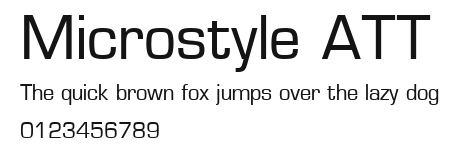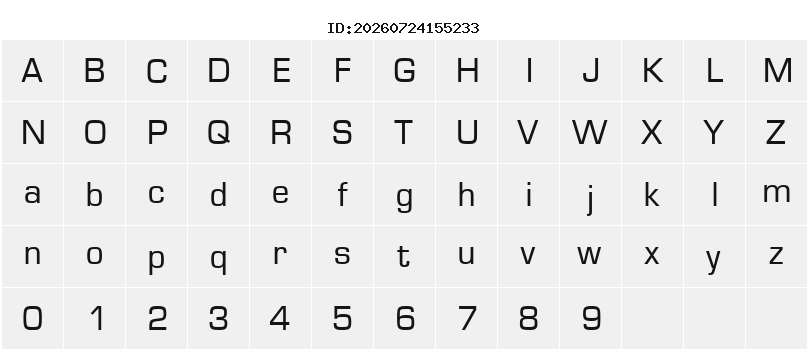
Microstyle ATT Preview
• Font Name: Microstyle ATT
• Font ID: Agfa Corporation: Microstyle ATT
• Full Font Name: Microstyle ATT
• PostScript Name: MicrostyleATT
About Microstyle ATT.ttf
Microstyle ATT.ttf is a modern, elegant sans-serif font designed for ultimate readability and visual harmony. Perfect for branding, headlines, web design, and print materials.